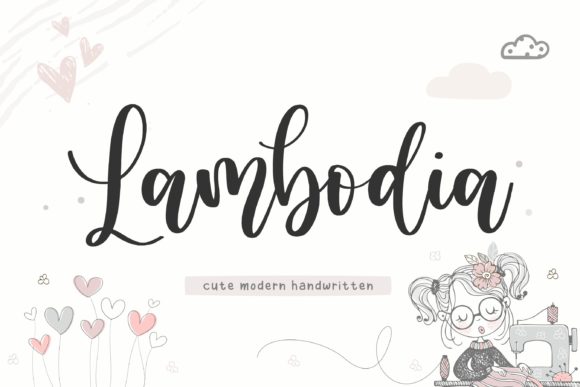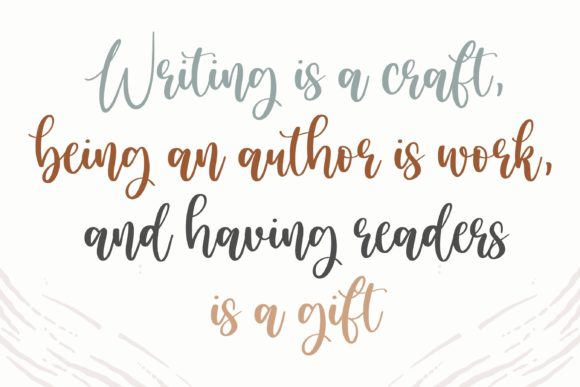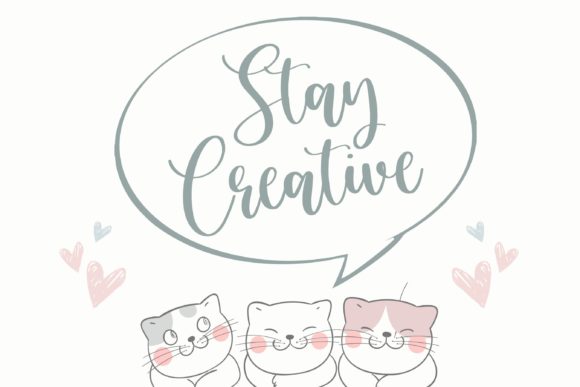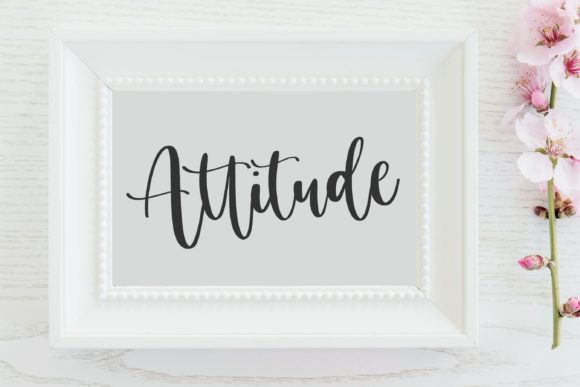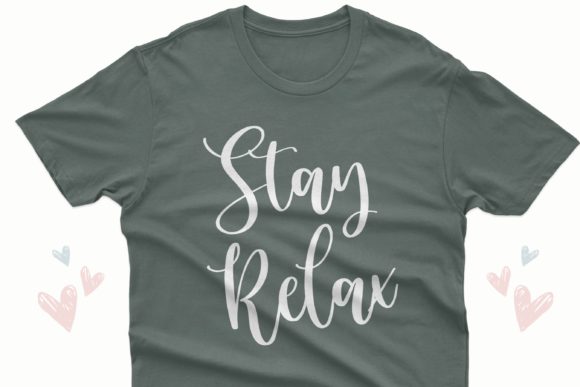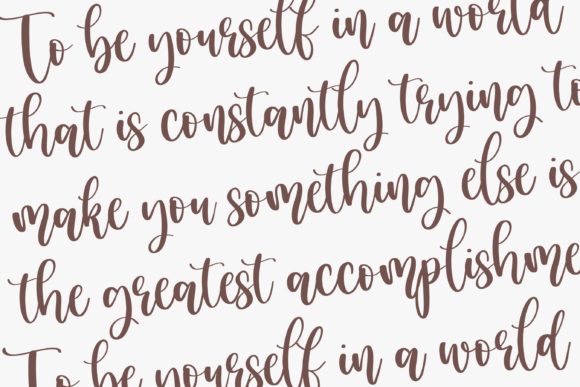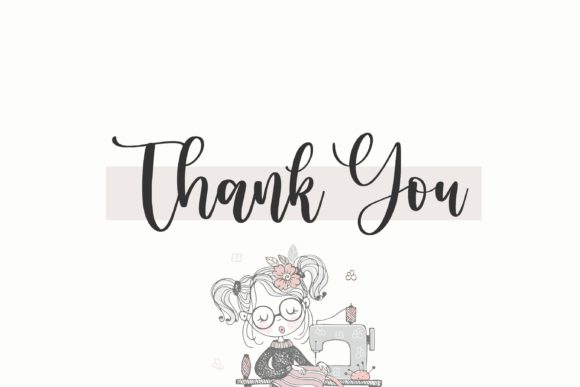
Lambodia Font
About Lambodia Font
Lambodia is a sweet, round lettered and relaxed handwritten font. With its neat and beautiful arrangement of letters, this typeface will look outstanding in both formal and non-formal designs.